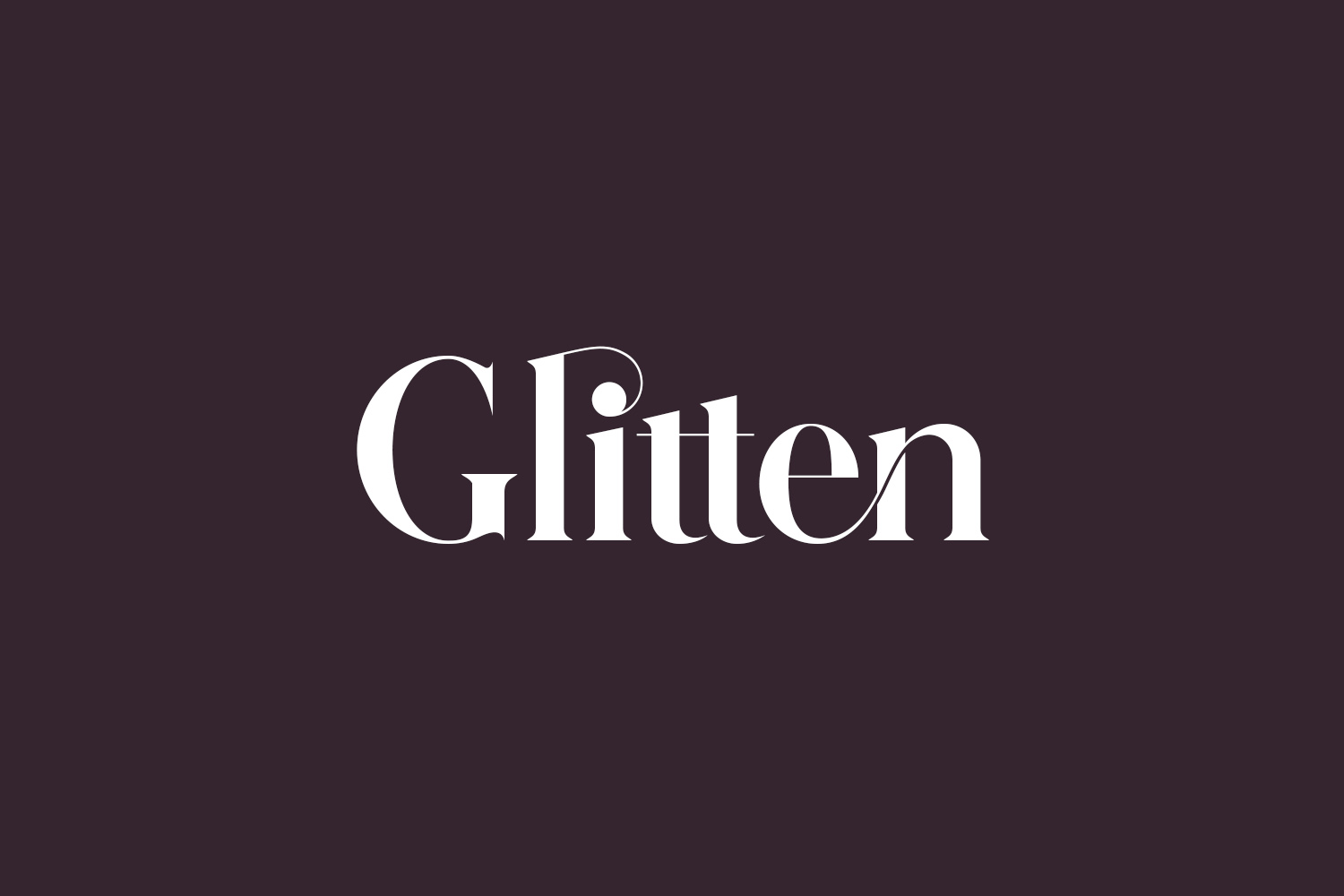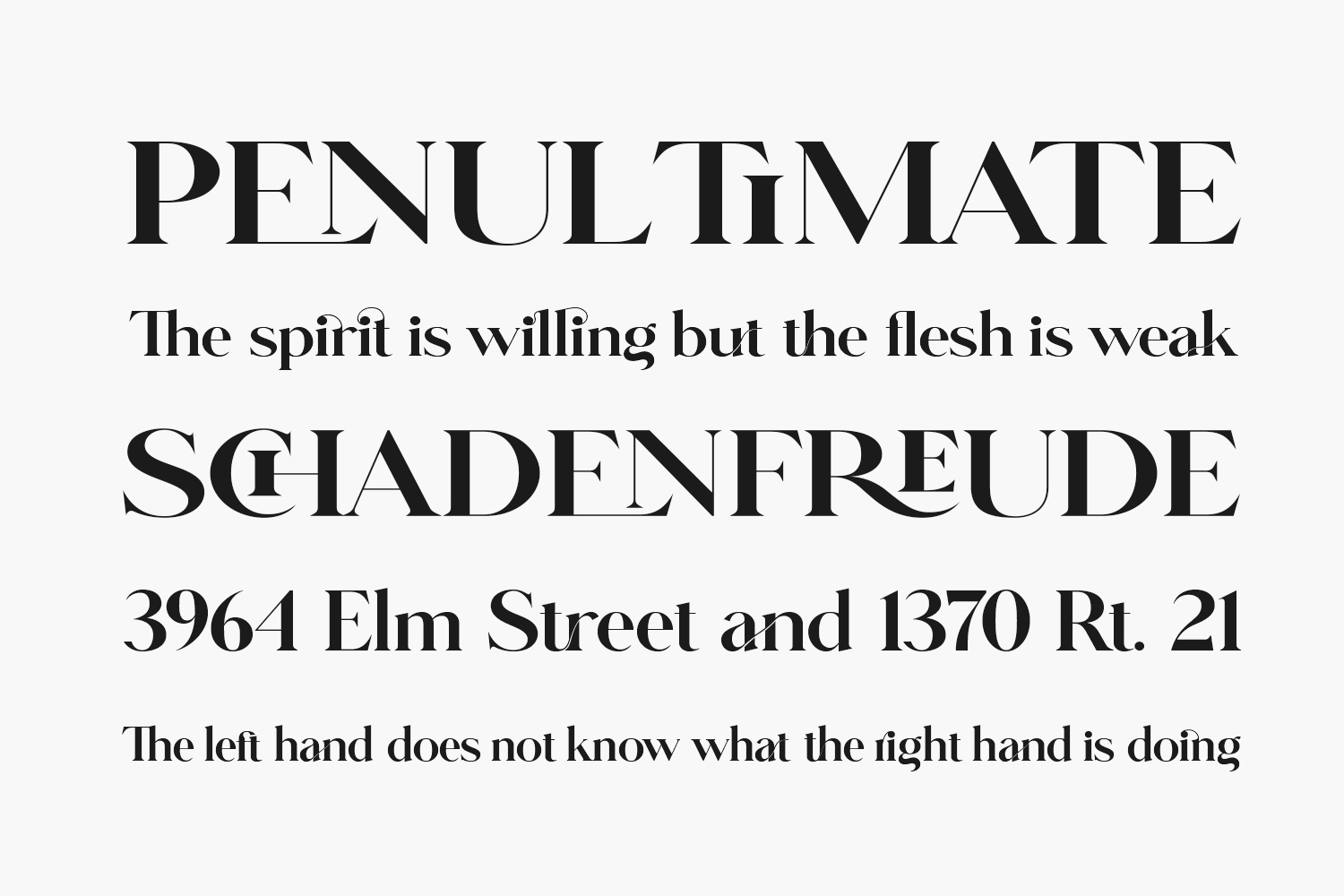
Glitten Free Font Family is a bold and elegant serif font. Fall in love with its incredibly versatile style and use it to create spectacular designs. Glitten Free Font Family was designed by BrandSemut and is free for personal use only. Please purchase the full version for commercial use.
Glitten Regular The quick brown fox jumps over the lazy dog
Glitten All Caps The quick brown fox jumps over the lazy dog